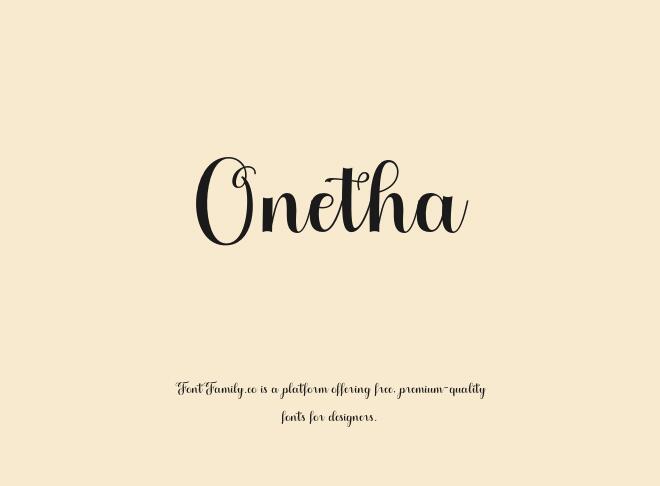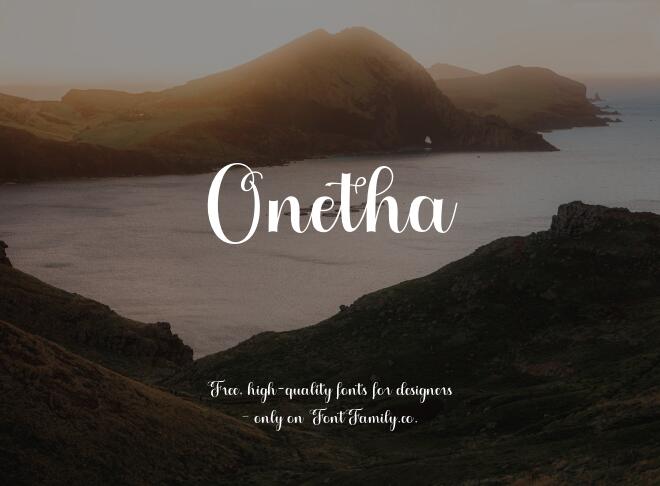
Onetha Font
Onetha Font is a stylish and modern handwritten typeface, perfect for bringing a touch of elegance and sophistication to your design projects. Its sleek curves and thin strokes give it a minimalist yet chic appeal, making it a great choice for fashion branding, social media posts, wedding invitations, and more. Onetha Font's unique style sets it apart from other handwritten fonts, offering a fresh and contemporary look. Its wide range of glyphs and ligatures allows for versatile use in various design contexts. With its free personal use license, Onetha Font is a great addition to any designer's toolkit, adding a touch of modern elegance to any project.